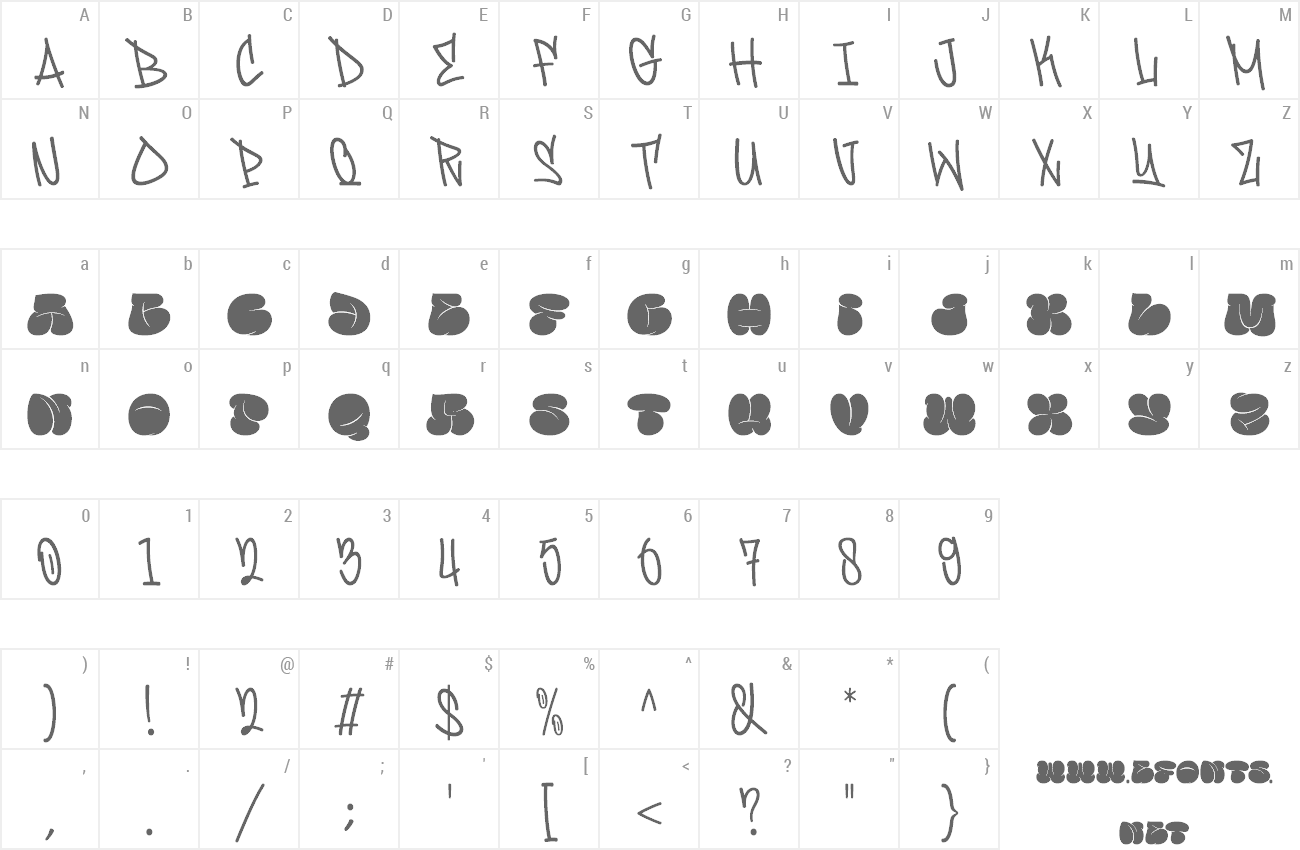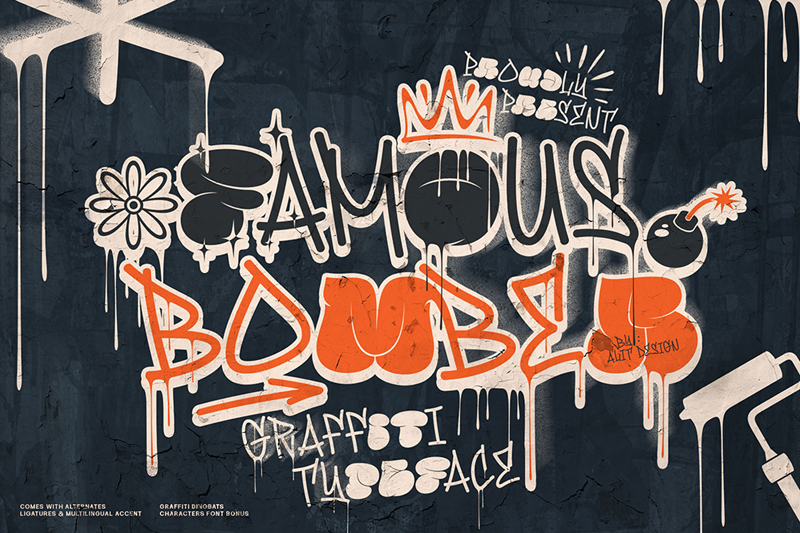
Preview and download Famous Bomber Font. Created by Alit Design in Script Graffiti styles with Free for personal use license.
Introducing �Famous Bomber� � a dynamic fusion of urban art graffiti bubble and expressive graffiti script, designed to bring an edgy and contemporary vibe to your projects. Inspired by the raw energy of street art culture, this font embodies the rebellious spirit and creative freedom synonymous with graffiti. This is font Demo just for personal use, Not permitted for commercial use. The donation is very appreciated. Please check here for more info about the license: https://alitdesign.net/license/ DOWNLOAD FULL VERSION AND FOR COMMERCIAL USE: https://alitdesign.net/product/famous-bomber-graffiti-mix-font/ Creative Market: https://creativemarket.com/alitdesign/92093857-Famous-Bomber-Graffiti-Mix-Font visit my website for full version and commercial use: https://alitdesign.net/ follow my Instagram to update my portfolio: https://www.instagram.com/alitdesign_studio/ Email : info@alitdesign.net |